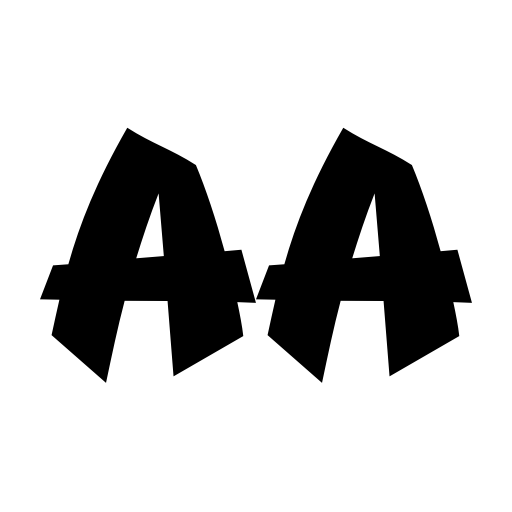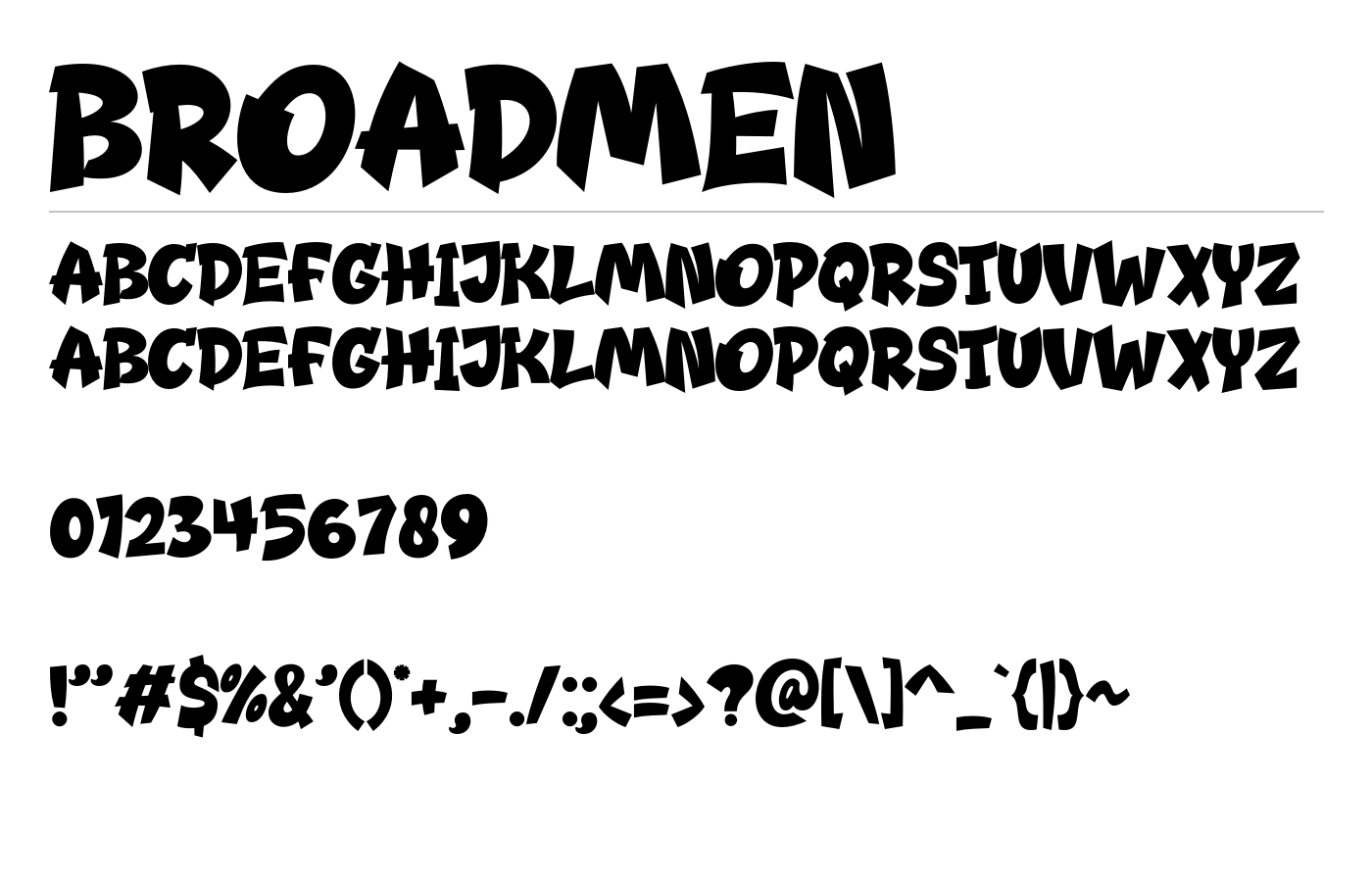
Broadmen is a bold, playful sans serif font with a strong, slightly irregular character shape that gives it a fun and energetic vibe. Its wide letterforms and chunky strokes make it perfect for attention-grabbing headlines, posters, or branding that aims to be approachable and lively. This font works well for creative projects and brands wanting a bold statement with a casual, friendly flair.
Broadmen Font
About Broadmen Font
| Font family | Broadmen Font |
| Designer | Lettersweet |